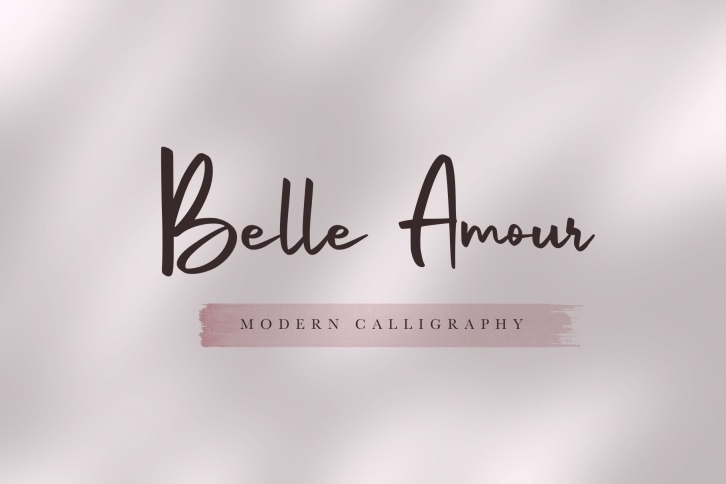
Belle Amour - Modern Calligraphy FONT Download
Belle Amour - Modern Calligraphy Font Download
Belle Amour is a great font that was designed by Craft Supply Co.. Imagine the amount of combinations you can create using this font! The archive is 15.6 MB and it was released on September 23, 2020. Belle Amour looks beautiful on wedding invitations, greeting cards, logos, posters, labels, t-shirt designs, logos, business cards and is perfect for use in ink or watercolor works, fashion, magazines, packaging and food menus, children's books and more!